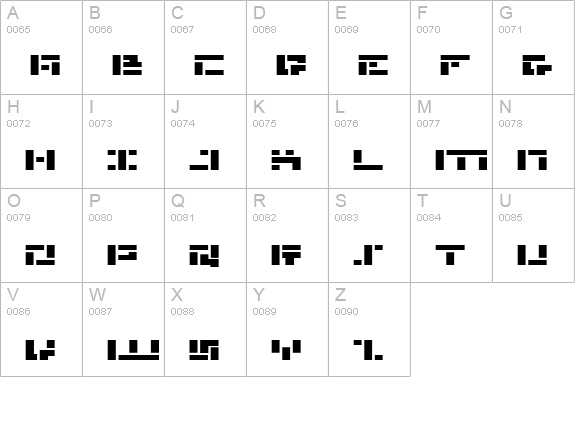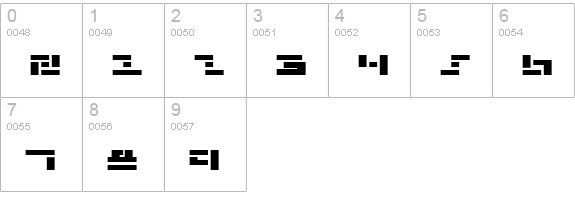
Missile Man Bold Exp is a strong, high-contrast variant in the Missile typeface family \xE2\x80\x94 well suited to headlines, attention-grabbing titles, and strong calls-to-action.
Missile Man Bold Exp font is a striking and bold typeface that commands attention with its strong and dynamic presence. The sharp edges and geometric shapes give this font a modern and futuristic feel, making it perfect for designs that require a powerful and confident look. Whether used for headlines, posters, or branding projects, Missile Man Bold Exp font will make your text stand out and leave a lasting impression. The best part? Missile Man Bold Exp font is available for free download at FontsMarket.com. This means you can easily add this versatile and eye-catching font to your collection without breaking the bank. Don't miss out on the opportunity to enhance your designs with this impactful typeface – download Missile Man Bold Exp font today and take your projects to the next level.